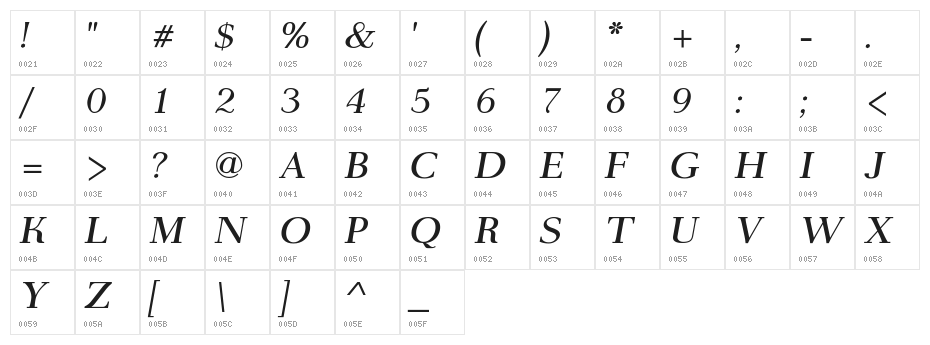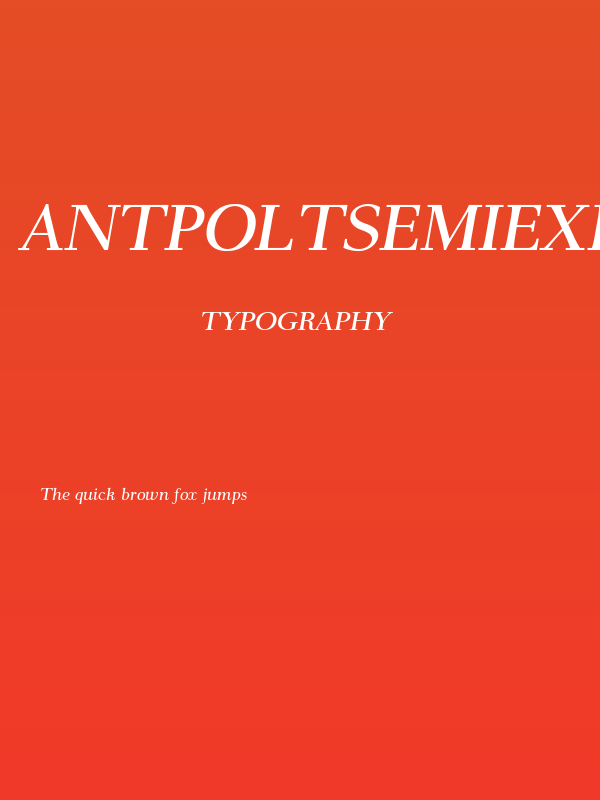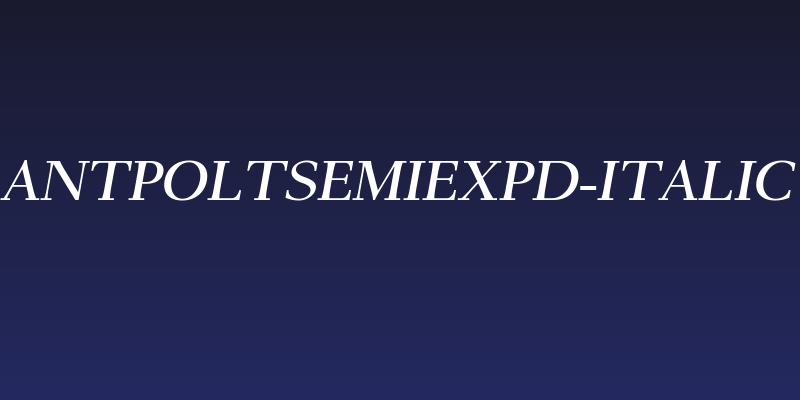
AntPoltSemiExpd-Italic Font
AntPoltSemiExpd-Italic Description
This font exhibits a refined and elegant style with a semi-expanded width that provides a sense of openness and readability. The italic nature adds a dynamic and sophisticated touch, making it suitable for formal and creative applications. The characters are well-proportioned, with smooth curves and a slight slant that enhances its graceful appearance. The numerals and special characters maintain the same elegant design, ensuring consistency across all text elements. The overall design is modern yet timeless, making it versatile for various design needs.